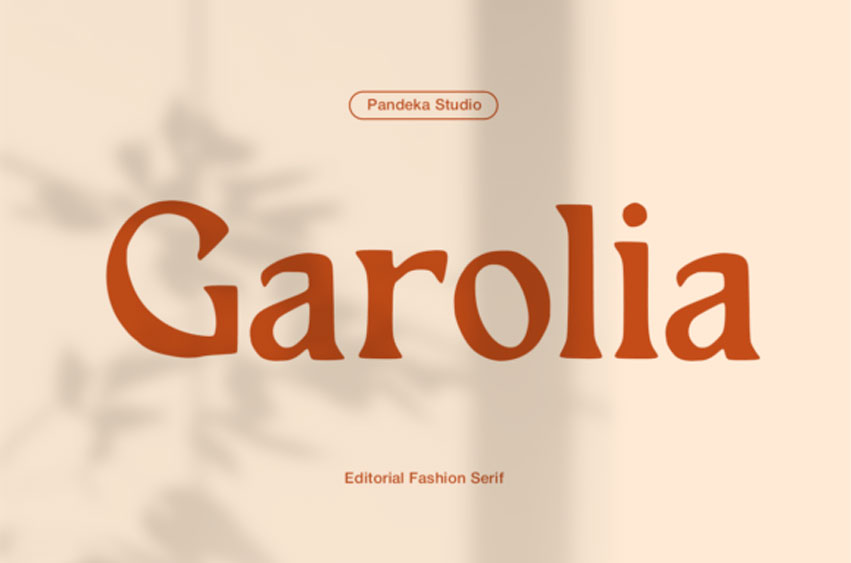
Garolia Font
Garolia Font is a warm editorial serif font designed for high-end fashion and slow luxury branding. Its soft curves, high contrast strokes, and contemporary rhythm make it ideal for magazine headlines, packaging, websites, and boutique identity systems. Garolia has personality without being overwhelming, capturing that sought-after balance between tradition and trend. Elegant and timeless with a subtle editorial edge.
With its refined letterforms and modern classic aesthetic, Garolia embodies high-end branding and artistic expression — perfect for magazines, fashion portfolios, product packaging, or luxury logo designs.
This font comes in 1 style: Regular, featuring uppercase, lowercase, numbers, punctuation, and multilingual support. Its graceful proportions and stylish curves make Garolia a versatile choice for both print and digital media, especially where beauty and professionalism meet.